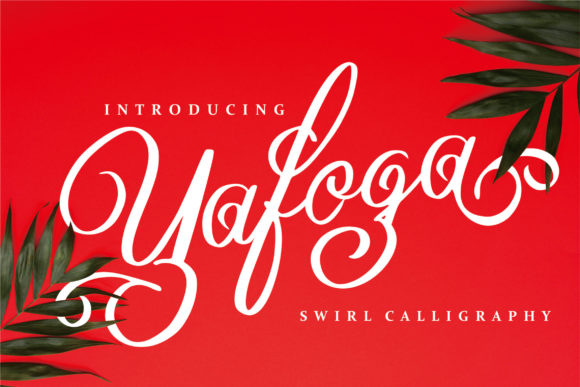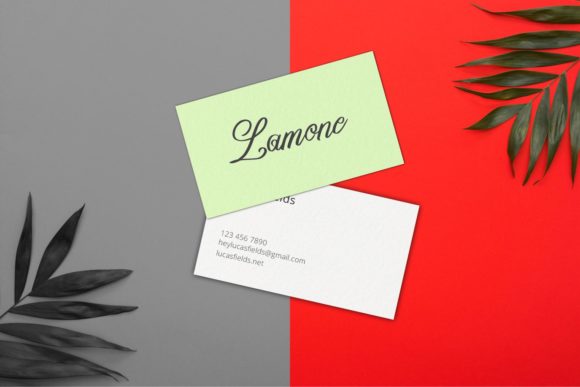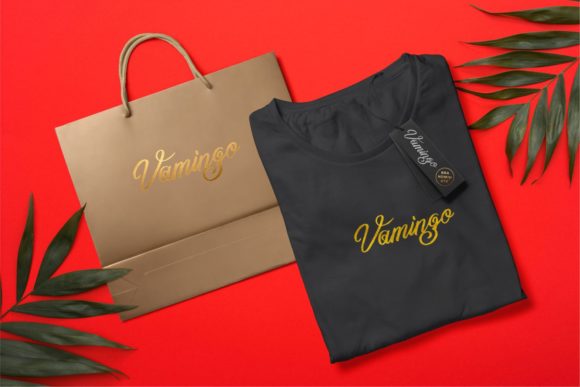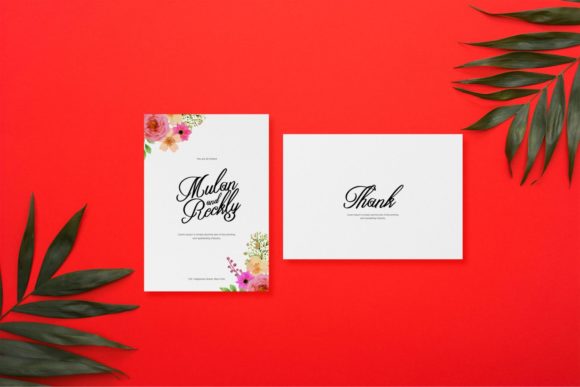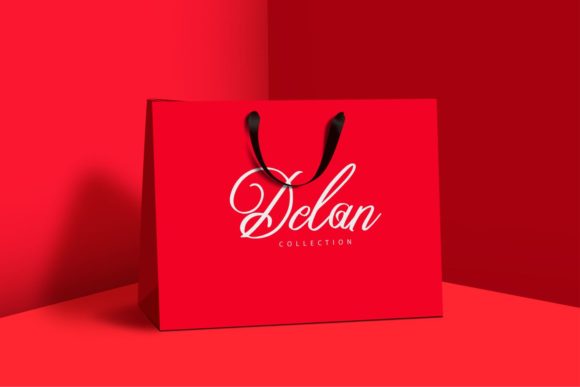
HomeScript FontsYafoga Font Script Fonts Yafoga Font FacebookXPinterestWhatsApp Yafoga Font Poster 2 Yafoga Font Poster 3 Yafoga Font Poster 4 Yafoga Font Poster 5 About Yafoga Font Yafoga is a cool and charming handwritten font with a modern style. Get inspired by its unique charm! DOWNLOAD ON CREATIVE FABRICAThis font is sold and delivered by Creative Fabrica. Font Canyon may earn a commission if you buy through this link. People also explored Fashion Font Manic Tambourine Silhouette Font Love Font Sporty Varsity Font Stay with Me Font Woles Font Love Haney Font Anse Script Font 353 0 TagsYafoga Font Previous articleArsa FontNext articleDreamland Font LEAVE A REPLY Cancel reply Comment: Please enter your comment! Name:* Please enter your name here Email:* You have entered an incorrect email address! Please enter your email address here Website: Save my name, email, and website in this browser for the next time I comment. Personal Use Free Archipellago Personal Use Free Read more about this font Awesome Snowflakes Font Personal Use Free Read more about this font Green Fuz Personal Use Free Read more about this font Little Pigeon Personal Use Free Read more about this font BLOG Elegant Wedding Invitation Fonts – Handwritten & Script Fonts Elegant Wedding Invitation Fonts Your wedding day is one of the most important moments of your life, and every detail matters—including your invitation design. Our... Free vs Paid Fonts: Why Investing in Premium Fonts Is Worth It To increase your work productivity, choose the most readable fonts. The 10 Best Handwriting Fonts to Add Personality to Your Designs